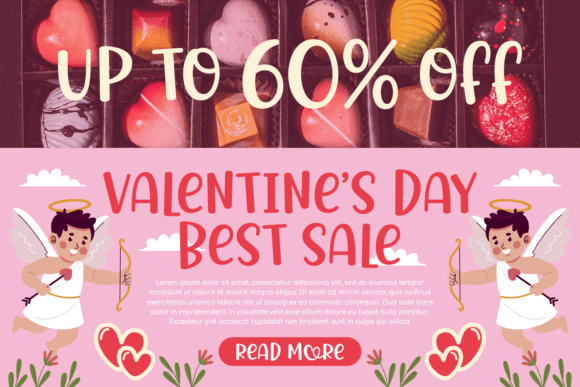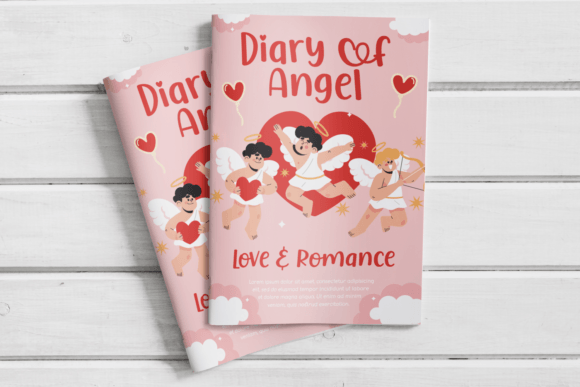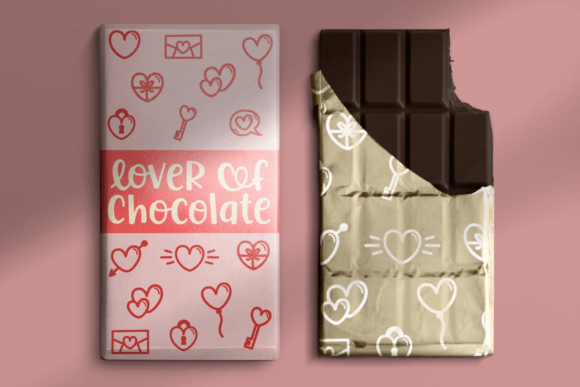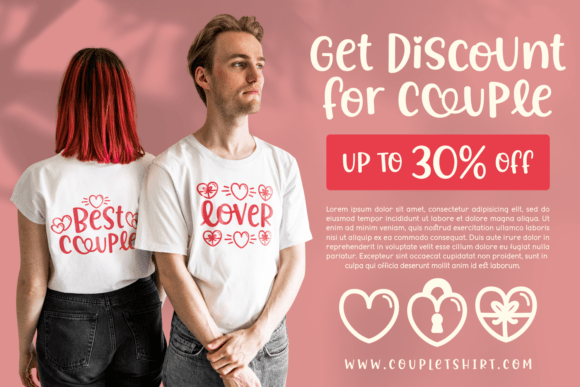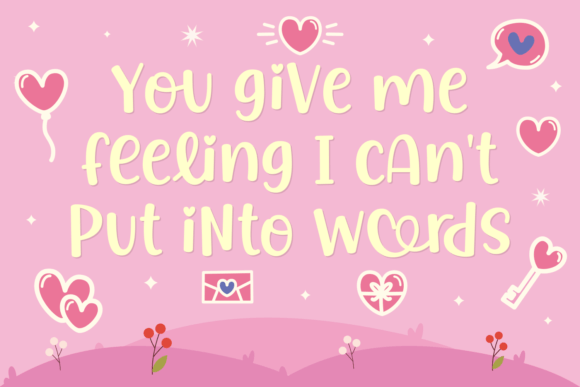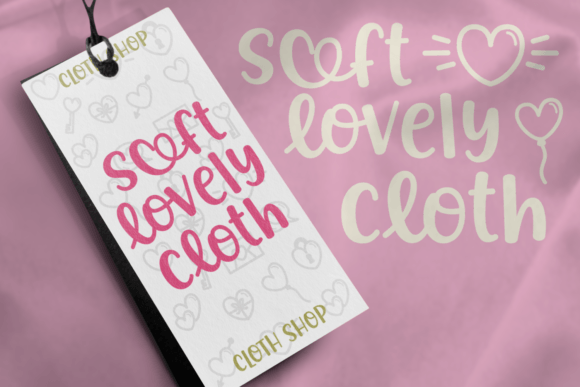
Introduction to Light of Love Font
Light of Love is a trendy and astounding script font.
It looks stunning on wedding invitations, thank you cards, quotes, greeting cards, logos, business cards, and every other design which needs an unimaginable touch This font is PUA encoded which means you can access all glyphs and ligatures freely.